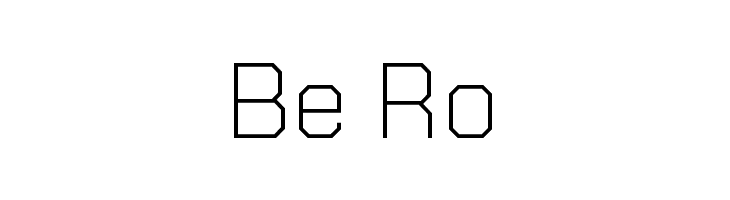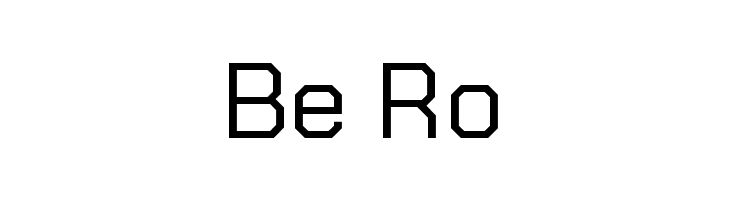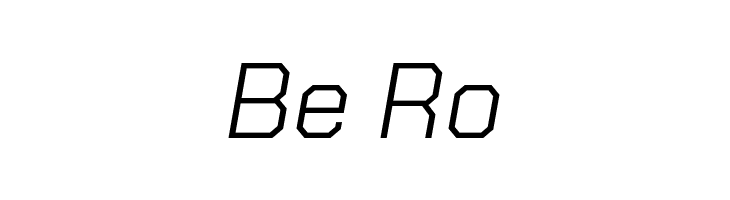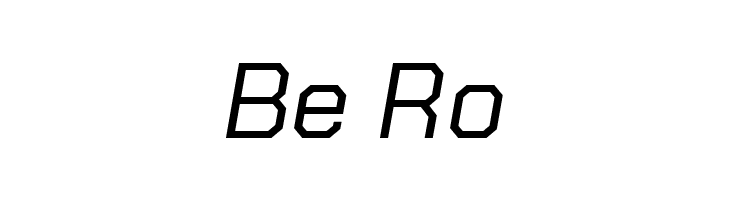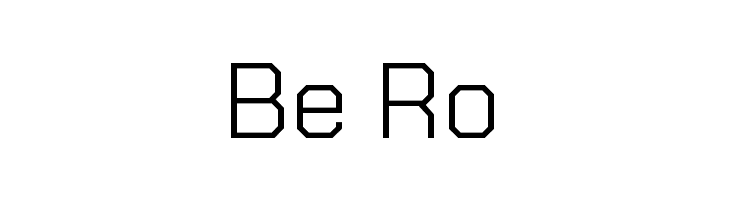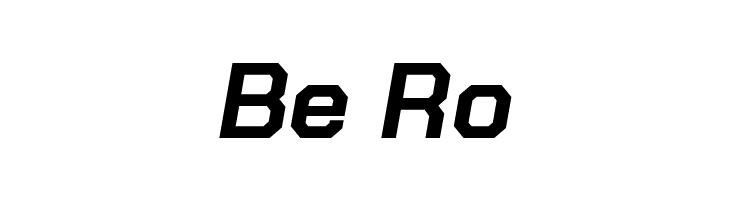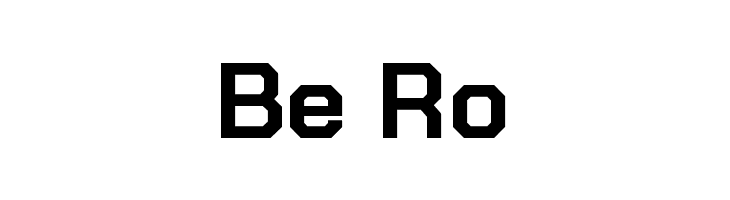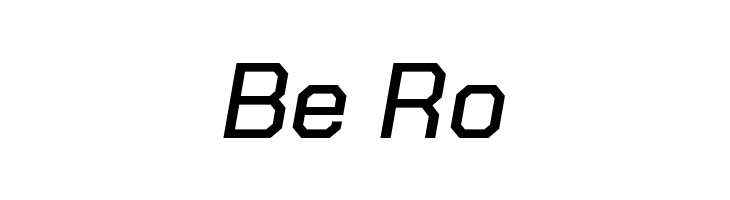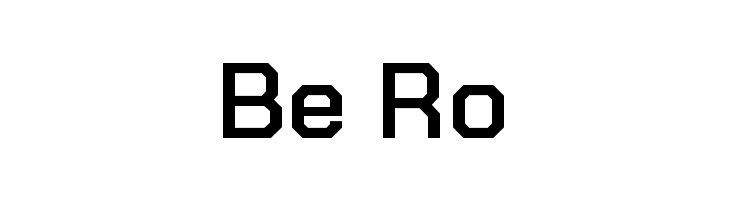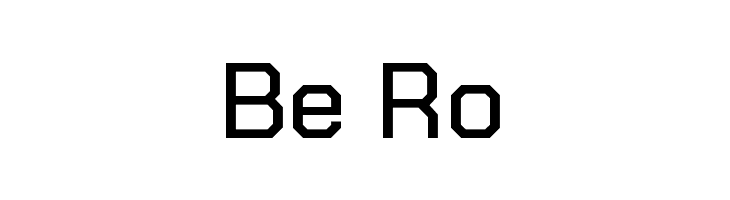
A bold, geometric font with a modern and technical design.
A bold, italicized font with a modern, geometric design.
A geometric, modern font with octagonal shapes and thin strokes.
A modern, geometric italic font with an extra light weight and sharp, angular letterforms.
A modern, geometric italic font with a sleek and dynamic appearance.
A geometric, modern font with angular, technical styling.
A modern, geometric italic font with a sleek, technical aesthetic.
A modern, geometric font with angular and structured letterforms.
A modern, geometric sans-serif font with an italic slant and medium weight.
A geometric, modern font with angular, futuristic design.
A geometric, modern typeface with bold, angular characters.
A modern, semi-bold italic font with a dynamic and futuristic style.